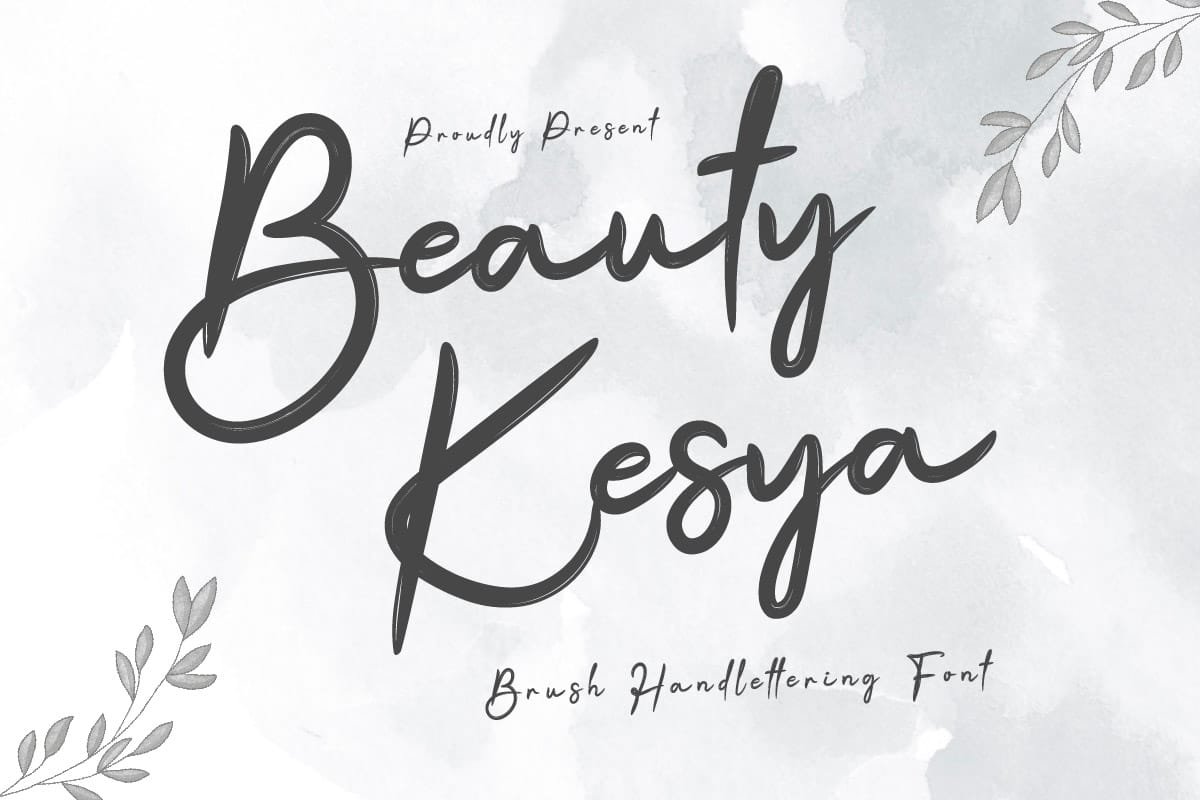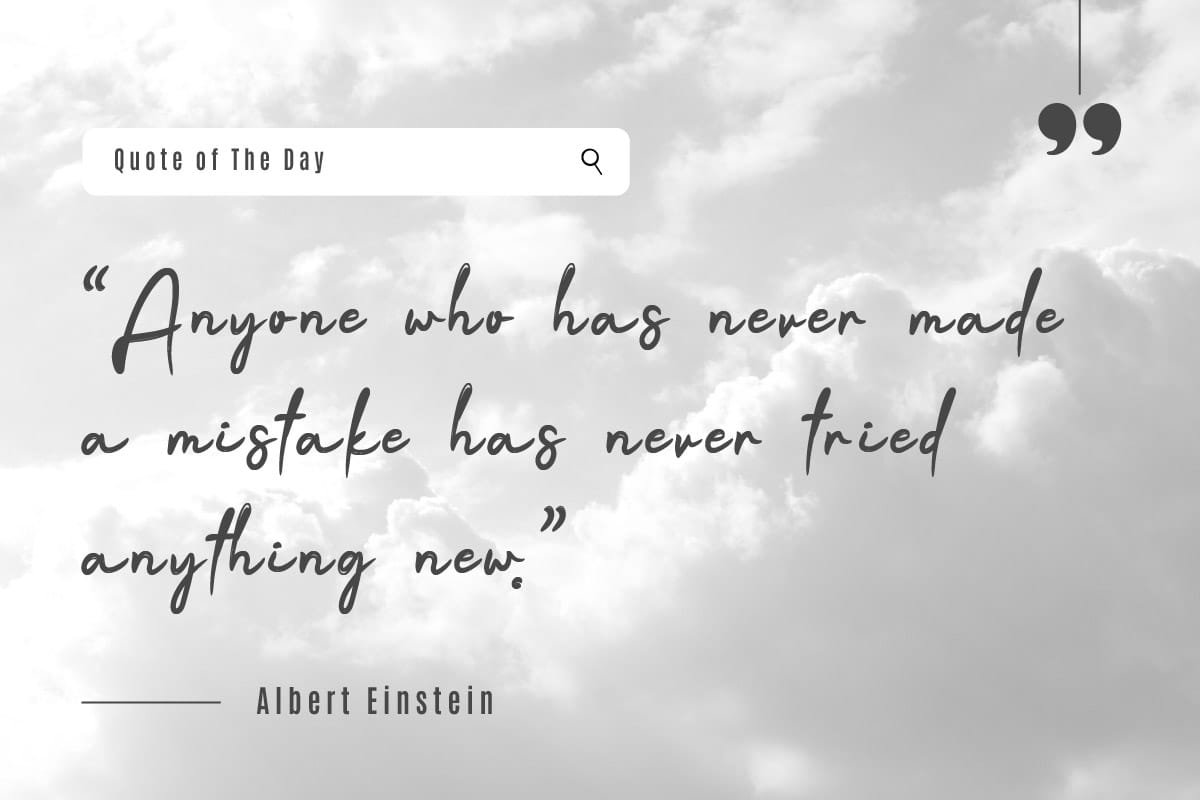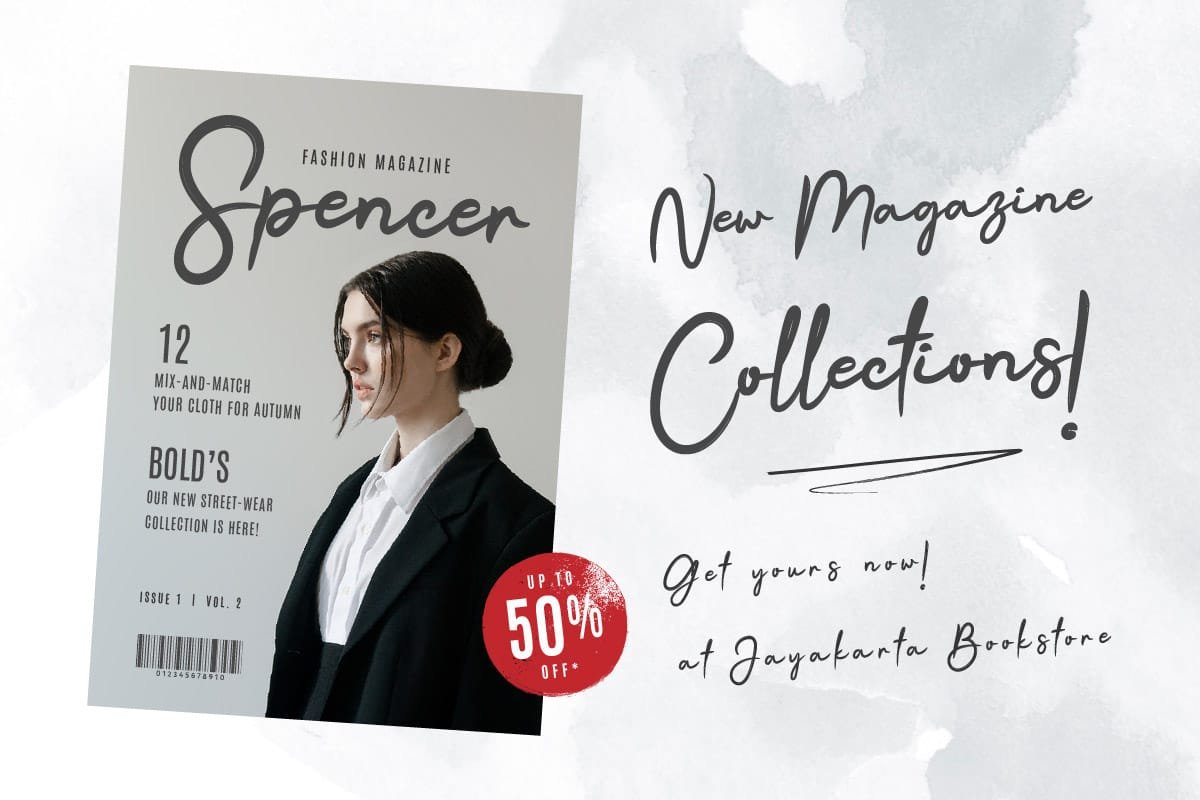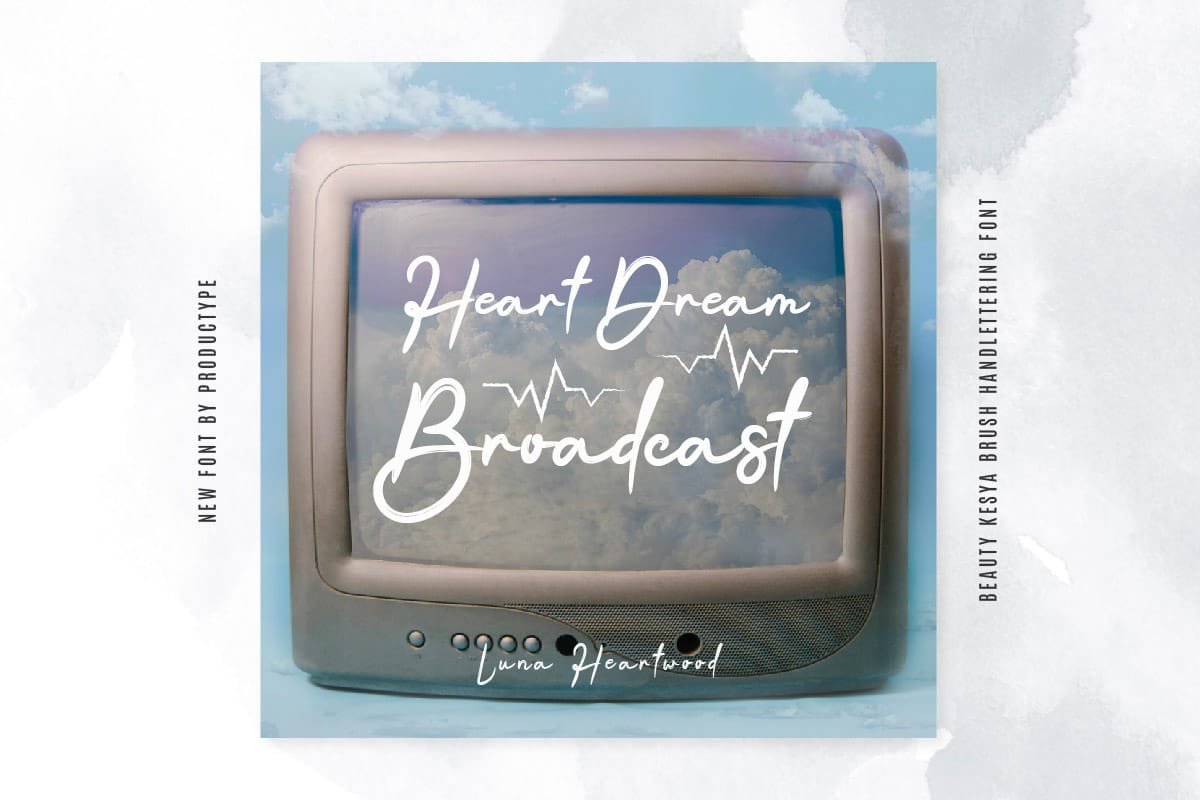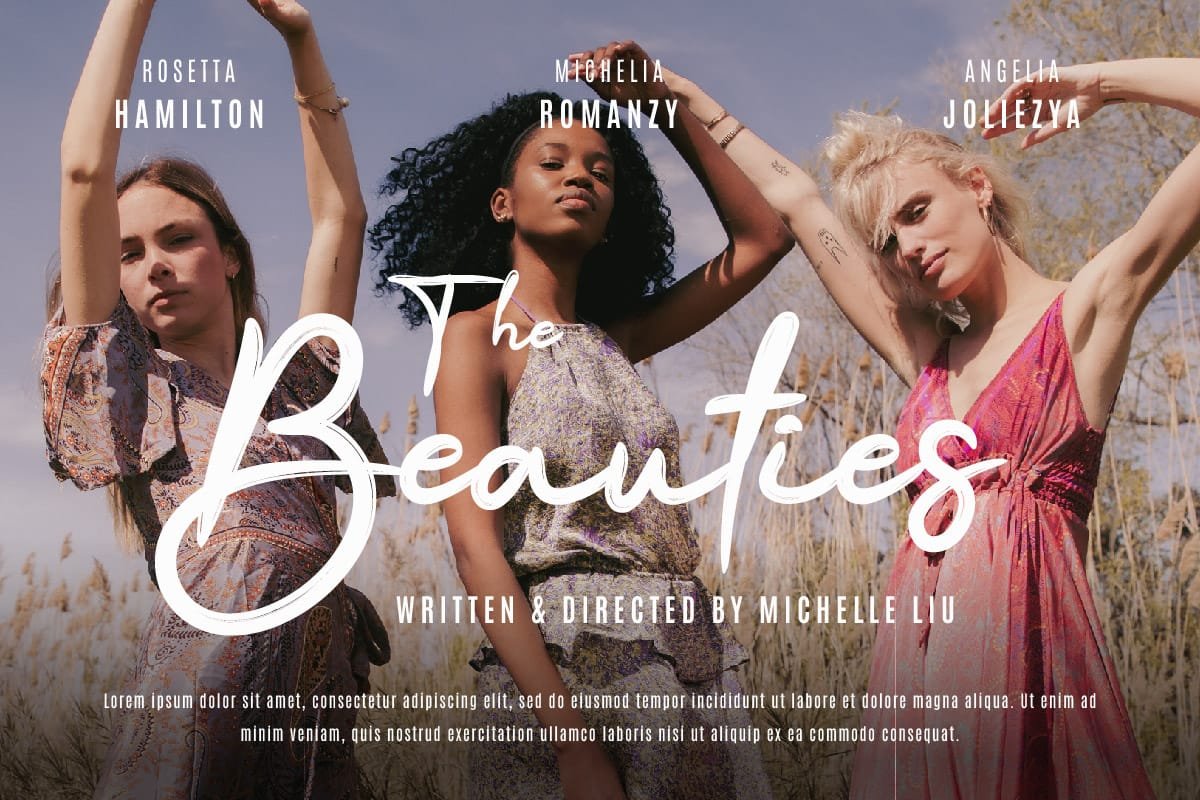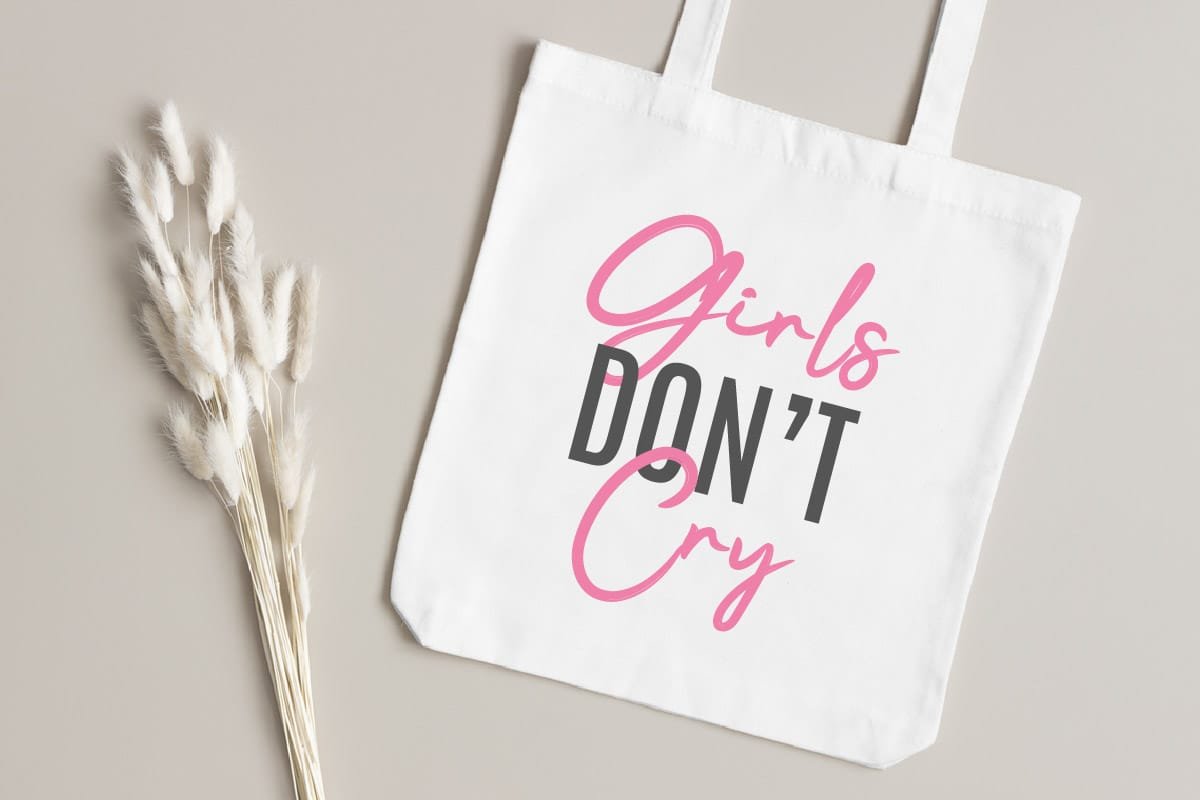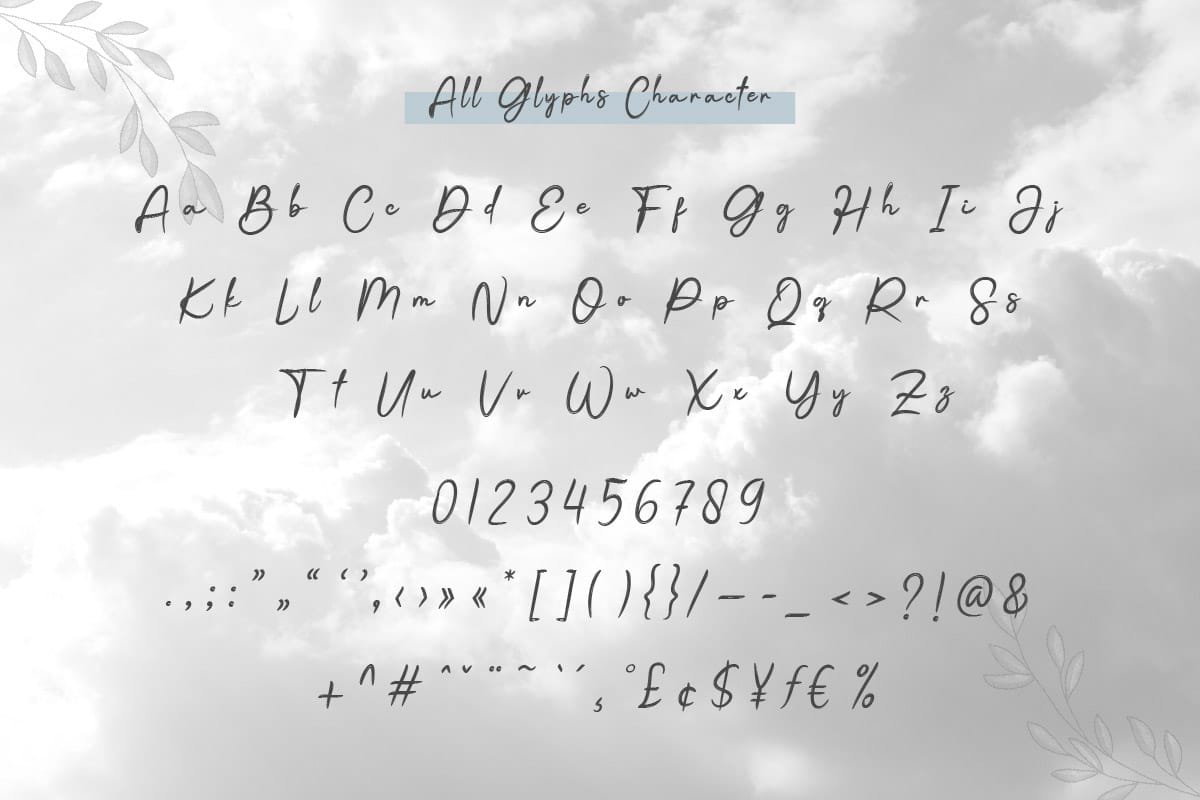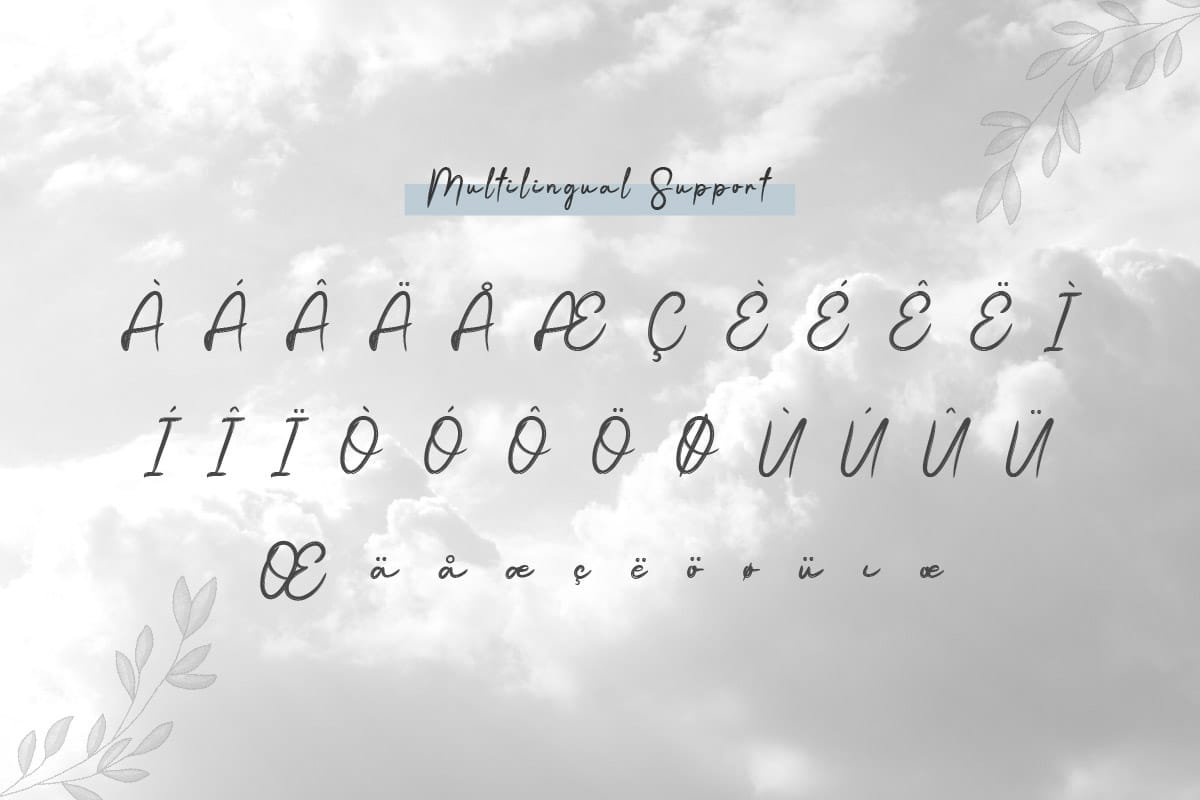
Beauty Kesya is a brush handwritten font that exudes a sense of beauty and elegance. Its organic, flowing characters mimic the beauty of human handwriting, making it perfect for designs that require a personal, handmade touch. Whether you’re creating a logo for a beauty brand or a headline for a fashion blog, Beauty Kesya adds a touch of beauty that is sure to captivate your audience.